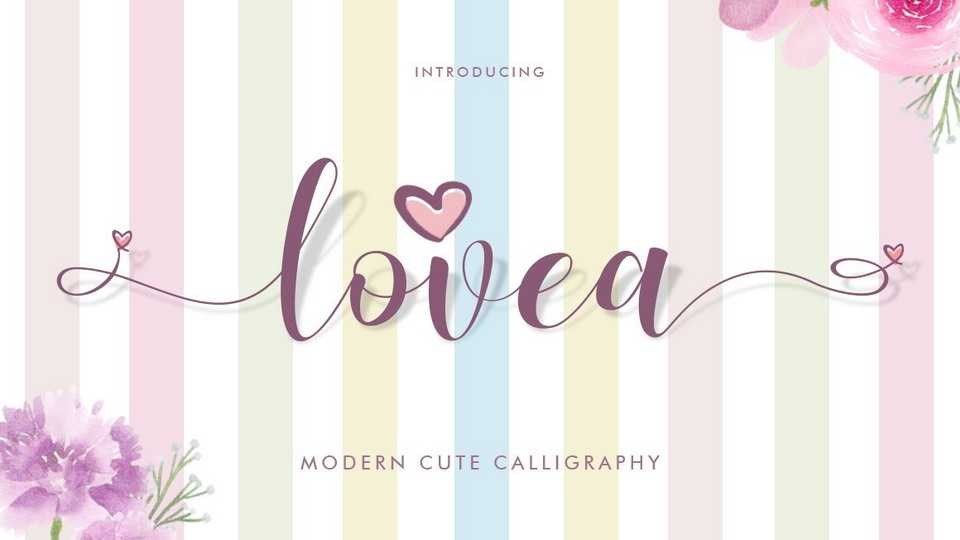
Download Lovea font, a wonderful handwritten script with a romantic feel. It’s suitable for wedding and Valentine’s design, logo, branding, greeting card, poster and any design that you create.